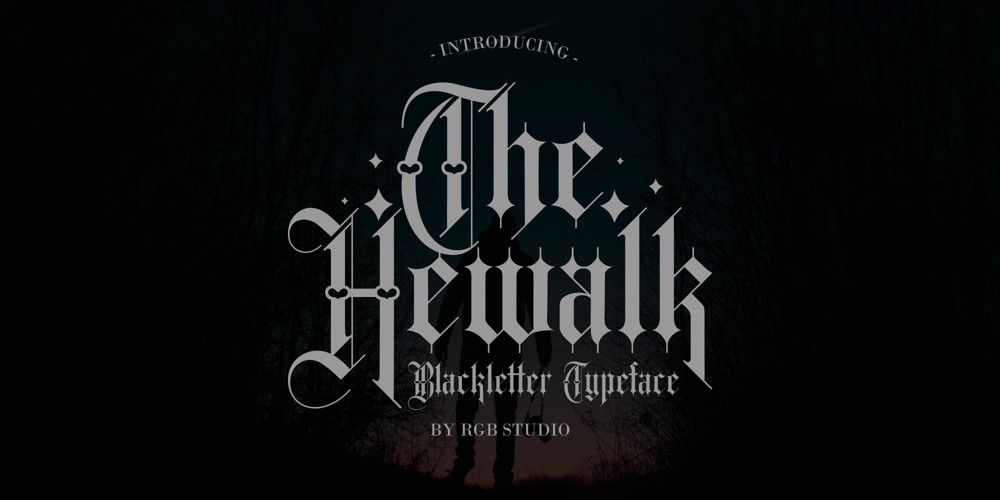
Hewalk
Hewalk font
Hewalk Font Family was designed by MOH. MA’IN and published by RGB Studio. Hewalk contains 1 styles and family package options. Hewalk is a font inspired by the Blackletter typeface, made with a modern impression but still looks strong and unique. In addition, Young Best font is also supported with multilingual characters that can be used in several international languages. Hewalk font is very suitable for use in making music album cover designs, tattoo logos, wishkey labels, packaging pomades and so on which are made with dark and strong concepts.Files Include : Basic Latin A-Z and a-z Numbers Symbols PUA Encode Multi-language Support Thanks and have a wonderful day, If you have any questions, please get in touch with usDon’t forget to check out our other products.